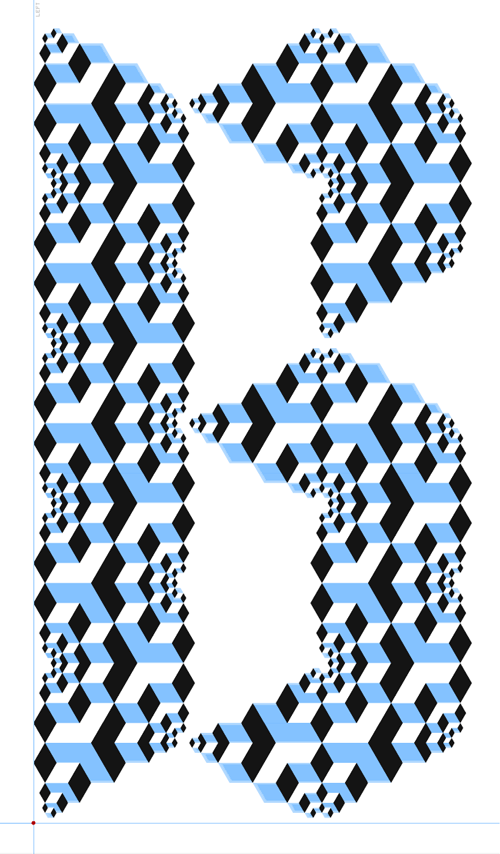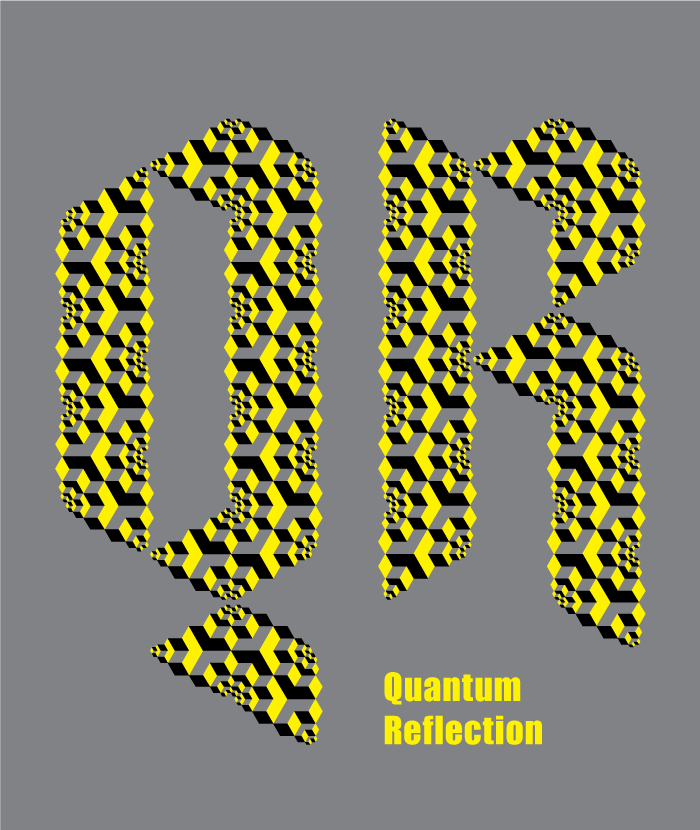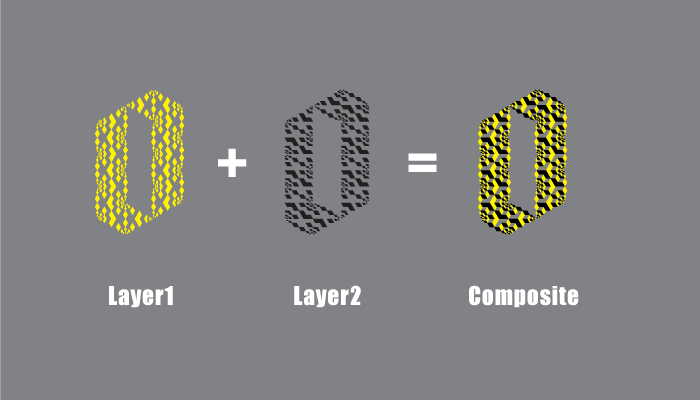
This is a layered typeface based on my Sierpinski series. The typeface comprises 3 fonts: 3 layers for 3 separate colours. However, if you are happy with the white background as one colour, you only need 2 layers. This is a decorative typeface to be used for single letters/figures/initials, or short snippets of text, such as logos at large sizes.
Figure: Actual screenshot taken directly in the Fontstructor. I took advantage of a small glitch to superimpose two layers with different colours. It was a great help to check the glyphs for small defects, or misalignment. Colour saturation and resizing was done in Photoshop.
Another Frodomagic design that makes my eyes go out of focus.
What a tremendous—and mind-boggoling—achievement.
I'm in awe.
This is amazing
@Frodo7 - I know I'm late to this party, but this high concept, multi-part FontStruction is simply astounding.  Congratulations!
@thalamic, gene1: I'm quite happy to release the pattern for you to clone and tinker with, if you are interested. One can't overestimate the possibilities of your combined force of creativity.
@Goatmeal: Thank you for your kind words. Well, there was no party. Fontstruct makes very little noise at present. Layered fonts are not new, but very trendy. I've simply used the layers to render an isometric pattern. Fontstruct proved to be excellent tool to ensure perfect alignment of the separate layers. I've designed several similar patterns; this one was my favourite.
Stunning!